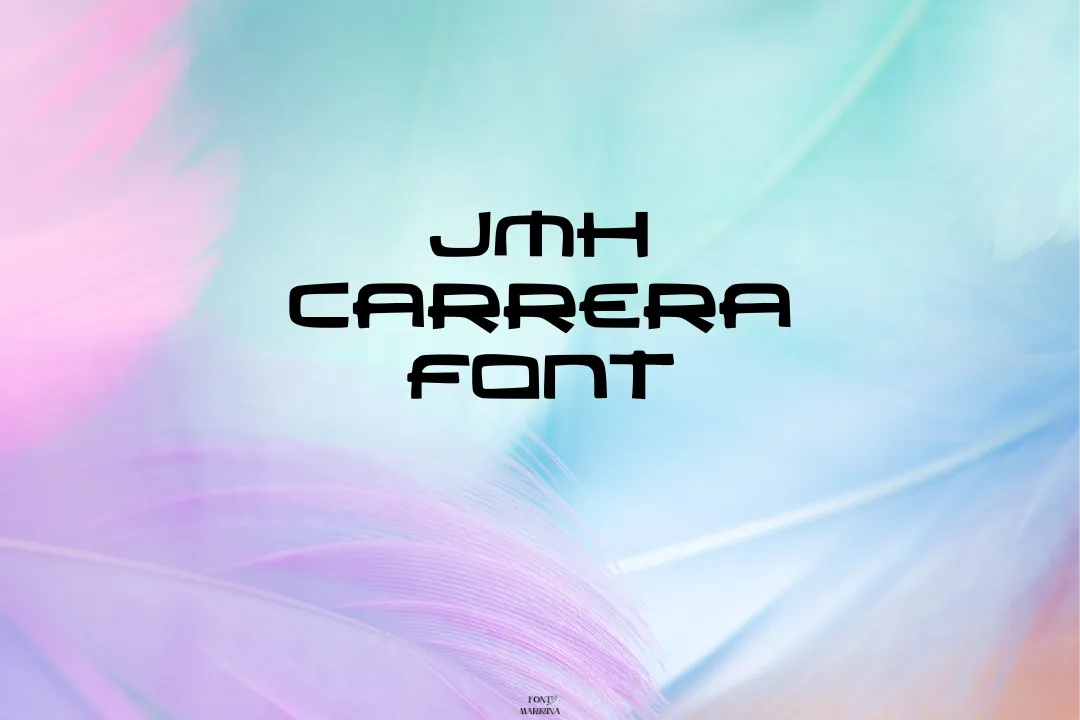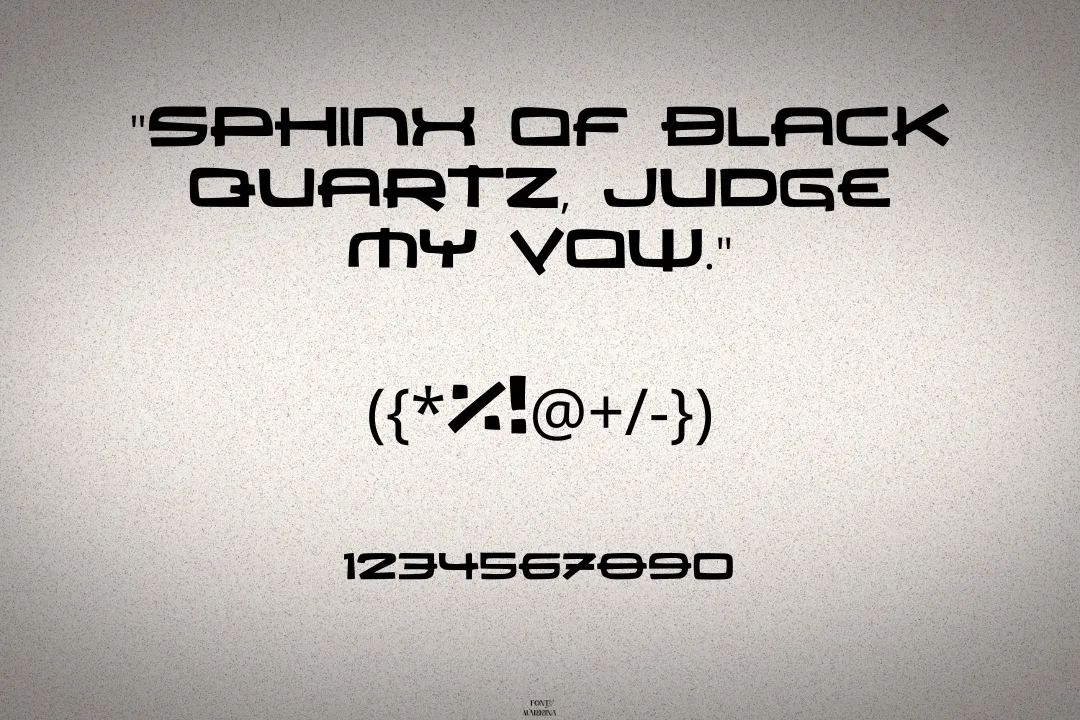
JMH Carrera Font
JMH Carrera font is a Fancy font designed by Jack Harvatt, a UK-based graphic designer, and Jorge Morón. The font is inspired by classic book typography and features elegant and legible letterforms with moderate contrast and slightly flared serifs.
This texture comes in four weights (light, regular, medium, and bold) with corresponding italic styles, and supports a range of languages and characters. By copy and paste the simple text into the generator tool you can achieve colorful graphic designs.
Who Can Use JMH Carrera Font
JMH Carrera typography can be used in a sort of design application, particularly in those that require elegant and legible typography. The moderate contrast and slightly flared serifs of the font make it a good choice for body text in print materials such as books, magazines, and brochures. The four available weights and corresponding italics also provide flexibility in creating a hierarchy and emphasis within the text.
You can also create the pairing of this family with Distro font easily. In addition to print materials, it can also be used in digital designs such as websites and mobile applications. Its legibility and classic appearance make it a good choice for long-form content like articles or blog posts, while its range of characters and language support makes it suitable for use in global markets.
DesignerJorge Morón
StyleFancy
What is the type of JMH Carrera?
This typography lies in the classification of the Fancy Family of fonts and has almost 4 weights.
Is the JMH Carrera typeface effective for Canva?
Yes, sure this typography is effective for Canva and other programs.
What is the main category of the JMH Carrera typeface?
This typography falls in the category of the Fancy family.